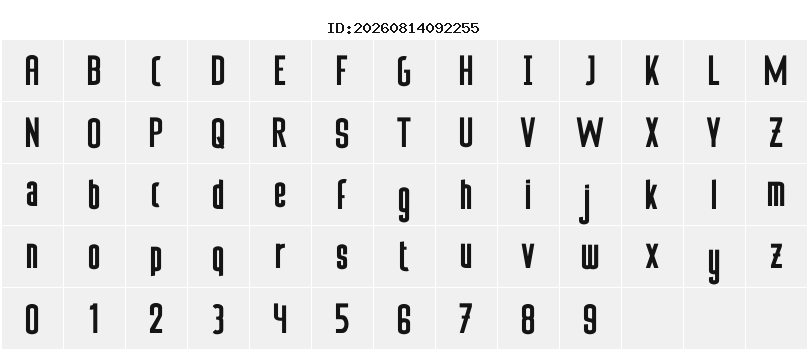
Sufficit Preview
• Font Name: Sufficit
• Full Font Name: Sufficit
About Sufficit.otf
Sufficit.otf is a modern, elegant sans-serif font designed for ultimate readability and visual harmony. Perfect for branding, headlines, web design, and print materials.